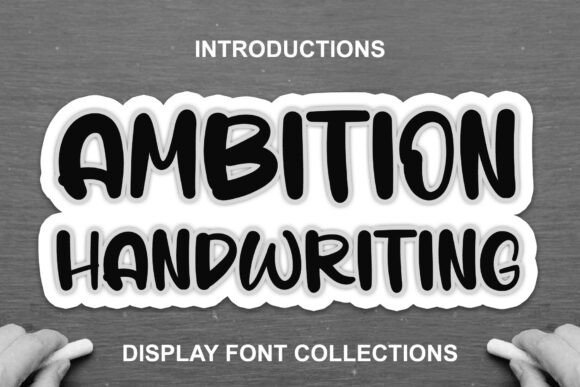
Unlock the Power of Whimsy with the Ambition Handwriting Font
Who hasn’t sat down with a blank piece of paper and a pencil, ready to unleash their creativity? For designers, those moments are often filled with excitement and possibility. But what if you had the perfect tool to bring your ideas to life? Enter the Ambition Handwriting Font, a fun and quirky display font designed to add a touch of whimsy to any project.
Perfect for children’s themed designs, the Ambition Handwriting Font is a game-changer for designers looking to create bright, cheerful, and engaging content. With its PUA encoded features, you can access all of the amazing glyphs and ligatures with ease, taking your designs to the next level. Whether you’re working on a kids’ book, a website, or a social media campaign, the Ambition Handwriting Font is the perfect addition to your design toolkit.
Ambition Handwriting Font Key Features
- Unique Handwritten Style: Ambition Handwriting Font features a unique, modern, and elegant handwritten style that adds a personal touch to any design.
- Extensive Character Set: Includes a wide range of characters, including uppercase and lowercase letters, numbers, punctuation, and special characters.
- Variable Font: Ambition Handwriting Font is a variable font, allowing for smooth interpolation between styles and sizes, making it ideal for dynamic typography.
- Professional and Versatile: Suitable for a variety of design projects, including branding, advertising, packaging, and editorial content.
Ambition Handwriting Font Review
Overall, I was excited to try out the Ambition Handwriting Font. It has a unique, hand-drawn feel that could add a personal touch to various design projects. ✨ The font is highly customizable, with many options for adjusting the look and feel to suit your needs.
Here are some of the things that work well with the Ambition Handwriting Font:
- ✨ Highly customizable: As mentioned earlier, the font has many options for adjusting the look and feel.
- ✨ Unique and hand-drawn feel: This font has a distinct, human touch that can add personality to your designs.
- ✨ Versatile: Ambition Handwriting Font can be used for a wide range of projects, from logos and branding to invitations and more.
- ⚠️ Limited character set: The font only includes uppercase and lowercase letters, with no additional characters or symbols.
- ⚠️ May not be suitable for small text: Due to its hand-drawn nature, the font may not be the best choice for small text or fine typography.
Overall, I would say that the Ambition Handwriting Font is a great choice for designers who want to add a personal touch to their projects. While it has some limitations, its unique feel and high level of customizability make it a valuable addition to any design toolkit.
- Use it for titles and headings to add a touch of elegance.
- Pair it with a clean sans-serif font for body text.
The Ambition Handwriting Font is perfect for:
- Brand logos and marketing materials.
- Personalized gifts and cards.
Alternative Handwriting Fonts for Designers
The Great Vibes font is a beautiful, elegant handwriting font suitable for use in wedding invitations, quotes, and other creative projects. It’s a great choice for designers who want a more refined and sophisticated look. Compared to Ambition Handwriting Font, Great Vibes has a more classic and timeless feel, with a softer and more rounded edge.
Carolyna Pro is a modern, stylish handwriting font that’s perfect for use in fashion, beauty, and lifestyle branding. It’s a great choice for designers who want a more dynamic and energetic look. Compared to Ambition Handwriting Font, Carolyna Pro has a more edgy and sophisticated feel, with a wider range of letterforms and flourishes.